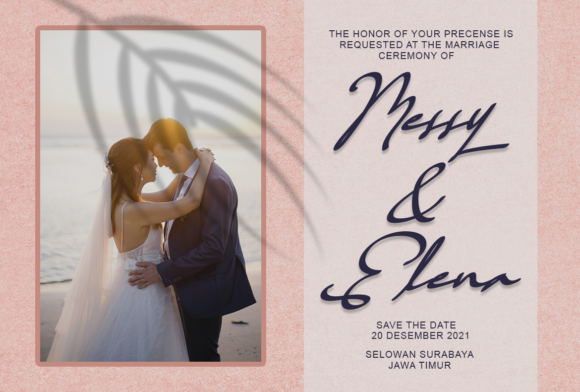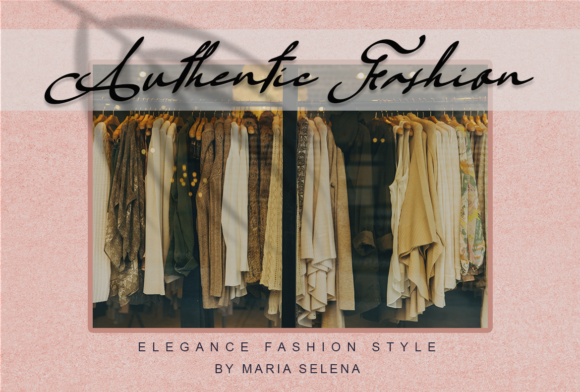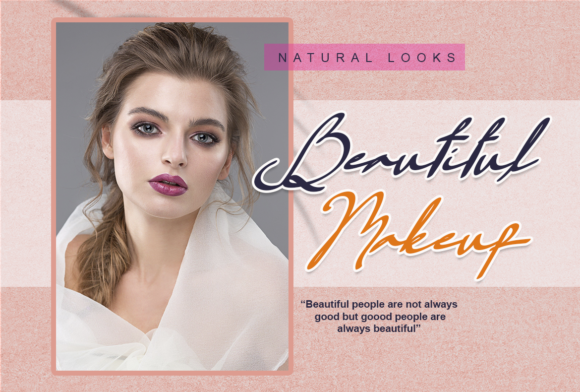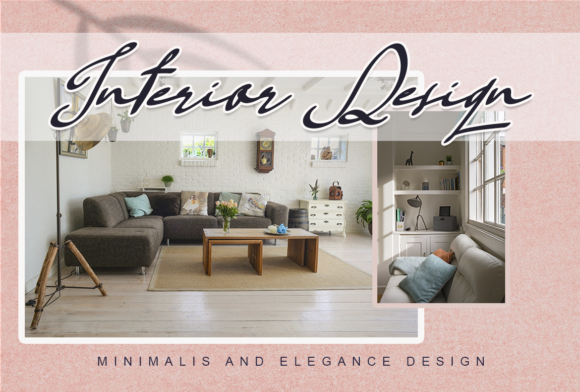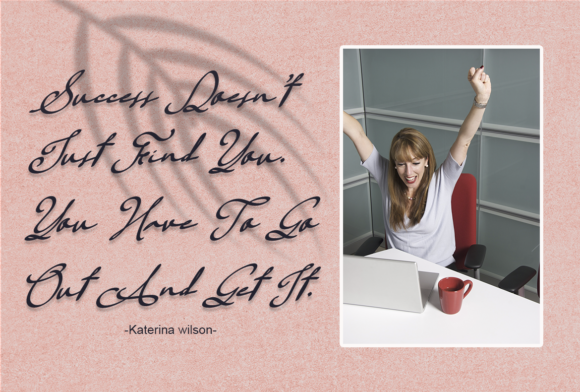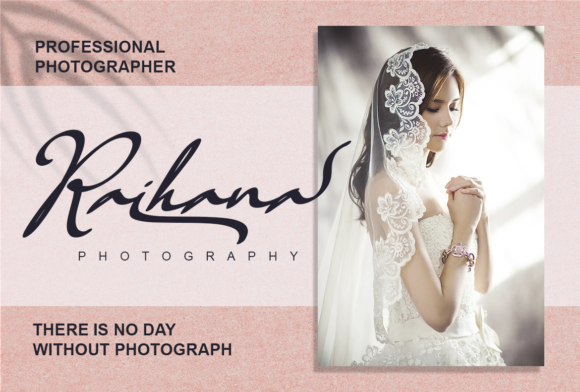
Amania Signature Font – Free Download
Introduction to Amania Signature Font
Amania Signature is a unique and elegant handwritten font.
It looks beautiful on a variety of designs requiring a personalized style, such as wedding invitations, thank you cards, weddings, greeting cards, logos and so on This font is PUA encoded which means you can access all of the glyphs and swashes with ease.
Key Features of Amania Signature Font
Why Choose Amania Signature Font?
Amania Signature Font offers exceptional quality and versatility, making it a valuable addition to your design toolkit. Whether you’re creating for personal projects or commercial use, Amania Signature Font delivers professional results.